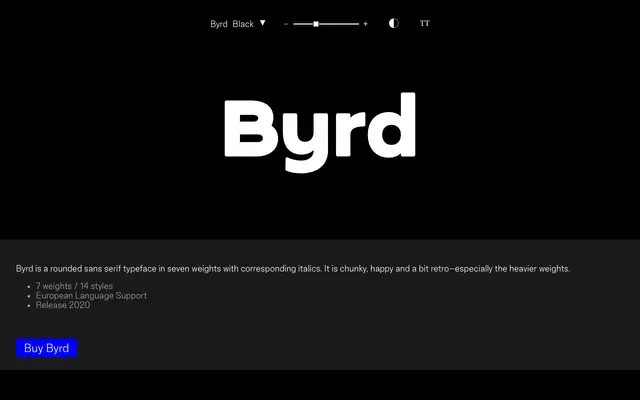
Byrd
Good Type Foundry · 2020
A chunky rounded sans in seven weights with italics, carrying a retro warmth that becomes more pronounced in heavier cuts.
Released in 2020 by Good Type Foundry, Byrd is a rounded sans serif spanning seven weights and fourteen styles including matching italics. The design has a cheerful, slightly retro character that grows more expressive at heavier weights, making it well suited to display use, branding and packaging where a friendly, rounded voice is needed. Glyph coverage includes 172 accented characters for broad European language support.
A rounded sans serif with chunky proportions and a retro character, particularly in heavier weights. The rounded terminals place it firmly in the rounded sans subcategory.